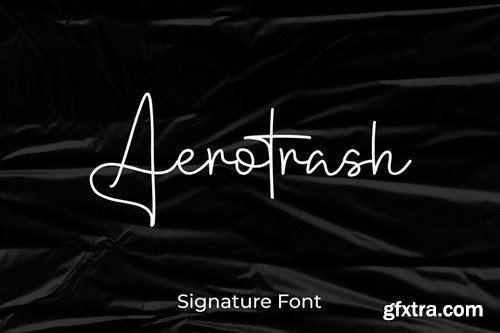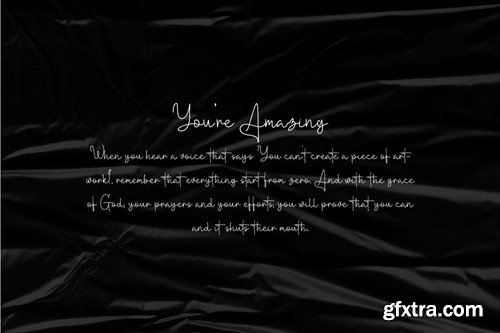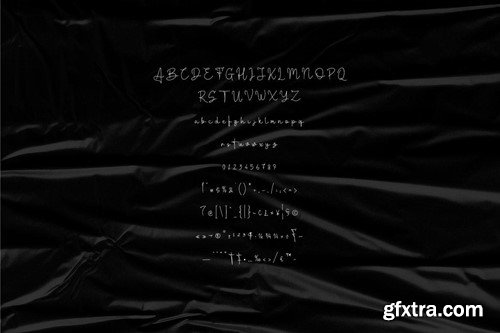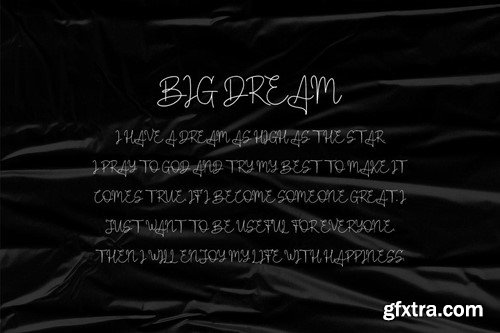
Aerotrash - 簡體字型簽名Font WH2LHN7
Elevate your design work with the exquisite charm of Aerotrash, a handcrafted signature font designed to infuse your projects with unparalleled elegance and a personal touch. Drawing inspiration from contemporary handwriting styles, Aerotrash seamlessly blends the casual grace of script lettering with the sophistication of modern design, making it an impeccable choice for a wide array of creative endeavors. Aerotrash is more than just a font; it's a gateway to endless creative possibilities. Whether you're a graphic designer, a small business owner, or a hobbyist looking to add a touch of personality to your work, Aerotrash delivers with its versatility and charm. Embrace the art of fine handwriting and make Aerotrash the signature font for your next project. The zip file is include: Thank You!